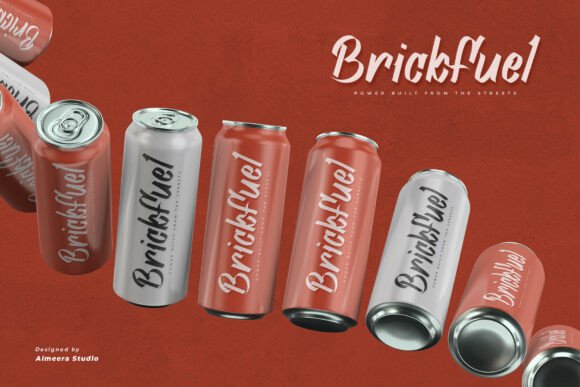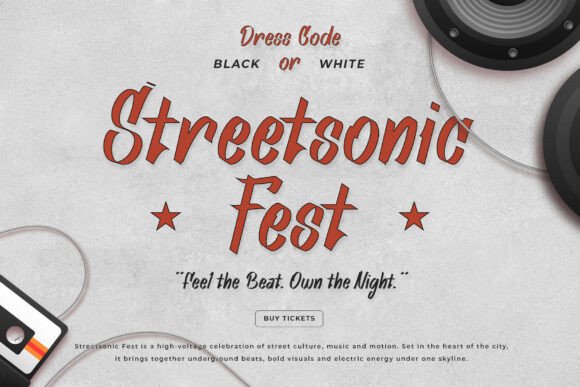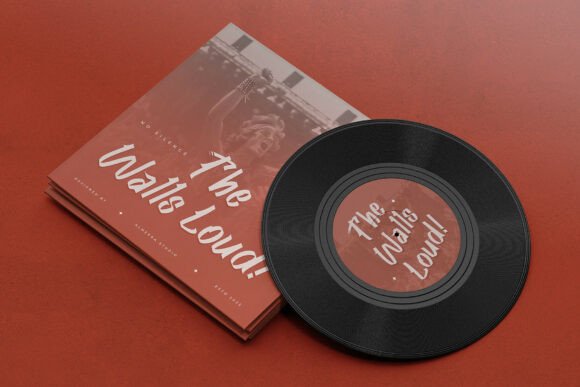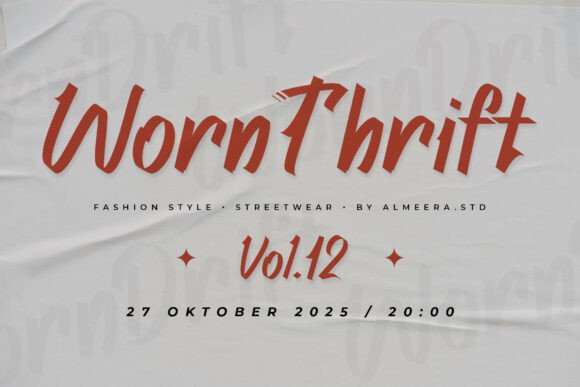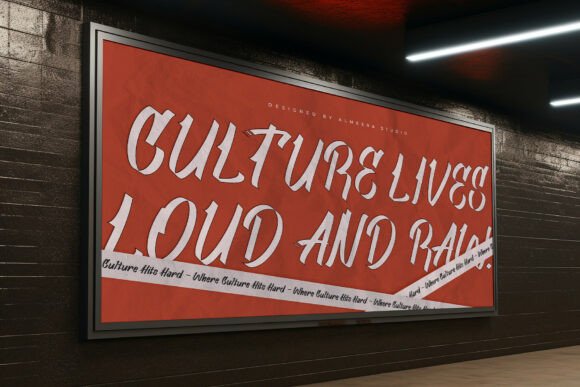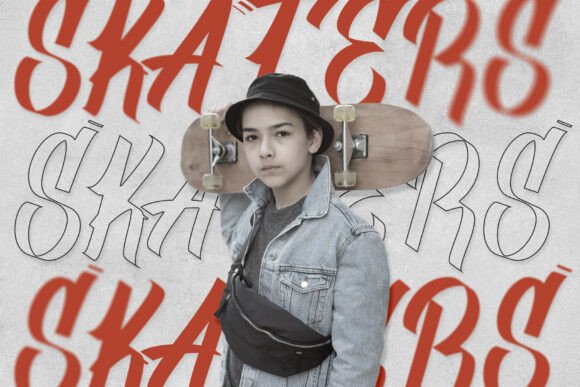
Introduction to Grestique Font
As designers, we’ve all been there – staring at a blank canvas, searching for the perfect font to elevate our creative project. Sometimes, it’s not just about finding a font that fits the aesthetic, but one that speaks to the tone and personality of our design. For those moments, I’d like to introduce you to the Grestique Font, a stunning display script that effortlessly balances casual charm with polished sophistication.
With its unique blend of brush stroke feel and structured clarity, the Grestique Font is a game-changer for designers looking to add a touch of handmade authenticity to their high-quality designs. Whether you’re working on a branding project, a boutique packaging design, or a creative blog header, this versatile font is sure to make a lasting impression. And the best part? The Grestique Font is available for free download, complete with transparent background options, making it a valuable resource for designers of all levels.
- The Grestique Font is a high-quality design resource that offers a unique and creative touch to any project.
- One of the unique characteristics of Grestique Font is its elegant and sophisticated design, which makes it perfect for use in high-end creative projects.
- The font’s versatility and flexibility make it an excellent choice for designers working on a variety of projects, from branding and advertising to editorial and publishing.
Honest Review: Grestique Font
As a designer, I’m always on the lookout for high-quality fonts to add some flair to my creative projects. The Grestique Font caught my attention, and I decided to give it a try. Here’s my honest review.
- ✨ High-quality design: The font is well-designed and looks great on various backgrounds.
However, I do have some limitations to mention:
- ⚠️ Limited character set: The font’s character set is limited, which may not be suitable for projects that require a wide range of characters.
- ⚠️ Not suitable for small text: The font may not be the best choice for small text due to its decorative nature.
Overall, I think the Grestique Font is a great addition to any designer’s toolkit. While it may have some limitations, its high-quality design and free download make it a valuable resource for creative projects.
The Grestique Font is a versatile and high-quality design resource that can elevate your creative project. With a transparent background, it’s perfect for adding a touch of sophistication to your designs.
Common Use Cases for the Grestique Font
The Grestique Font is perfect for a variety of design projects, including logos, branding materials, and marketing materials. Its high-quality design makes it ideal for creative professionals and businesses looking to make a statement.
To get the most out of the Grestique Font, experiment with different font sizes, colors, and combinations to find the perfect look for your project. You can also use it in conjunction with other design elements to create a cohesive and professional design.